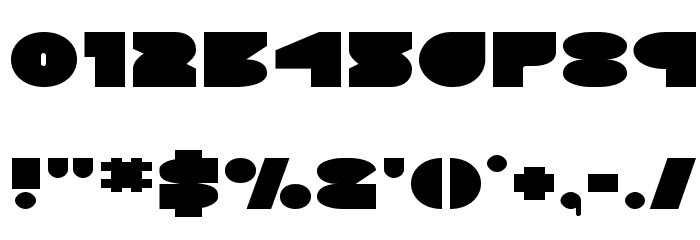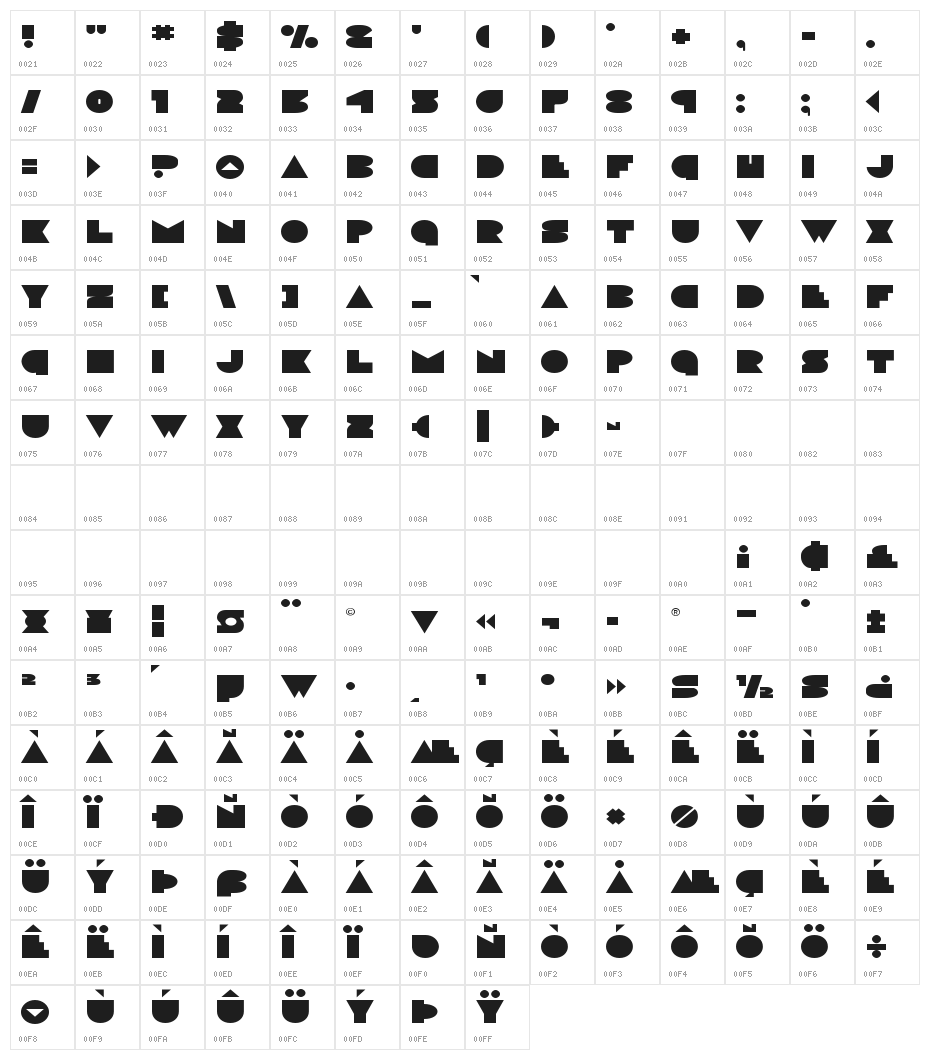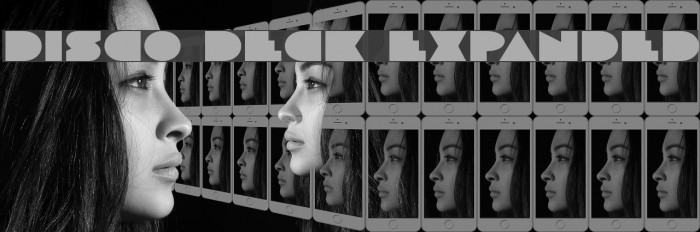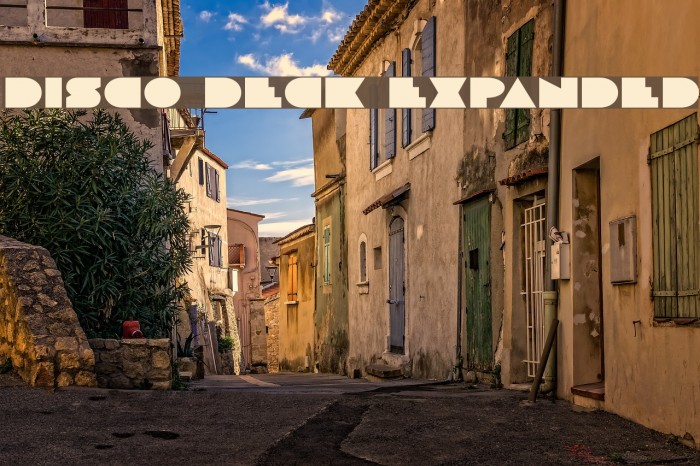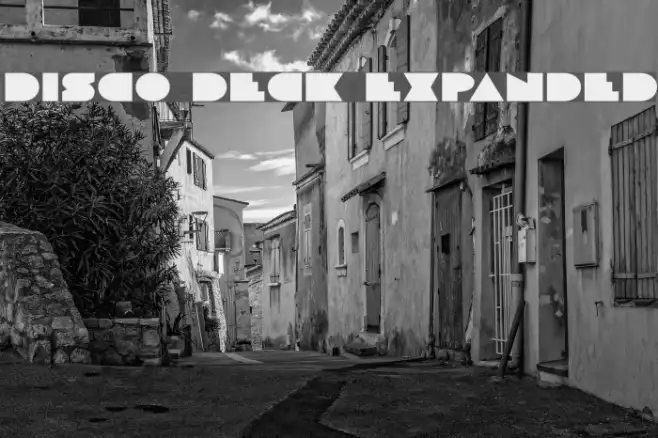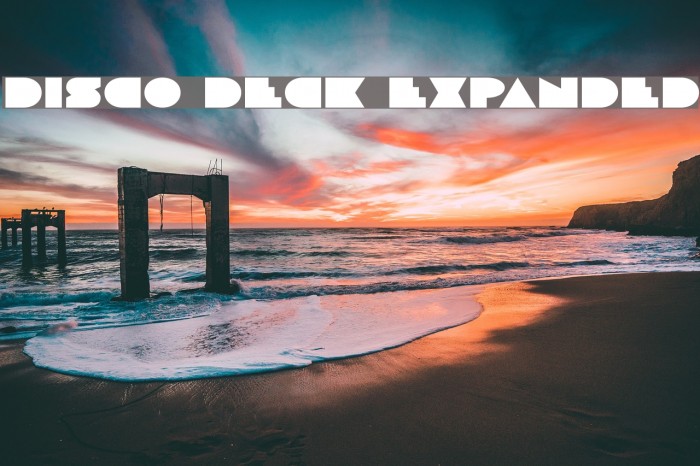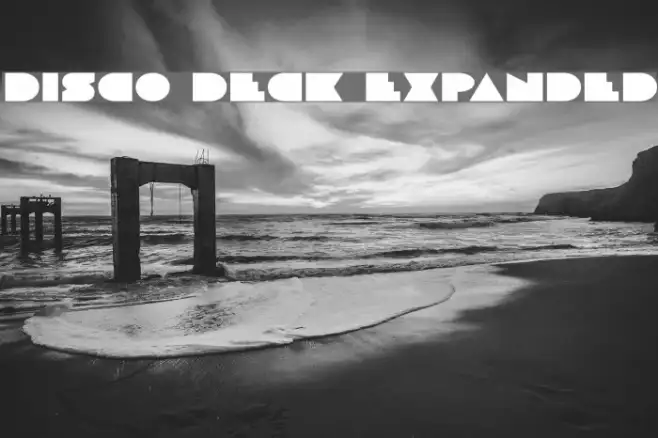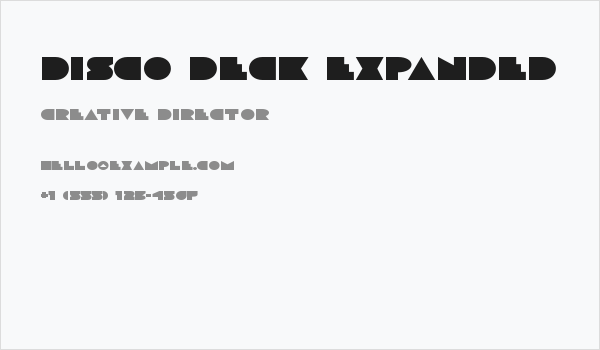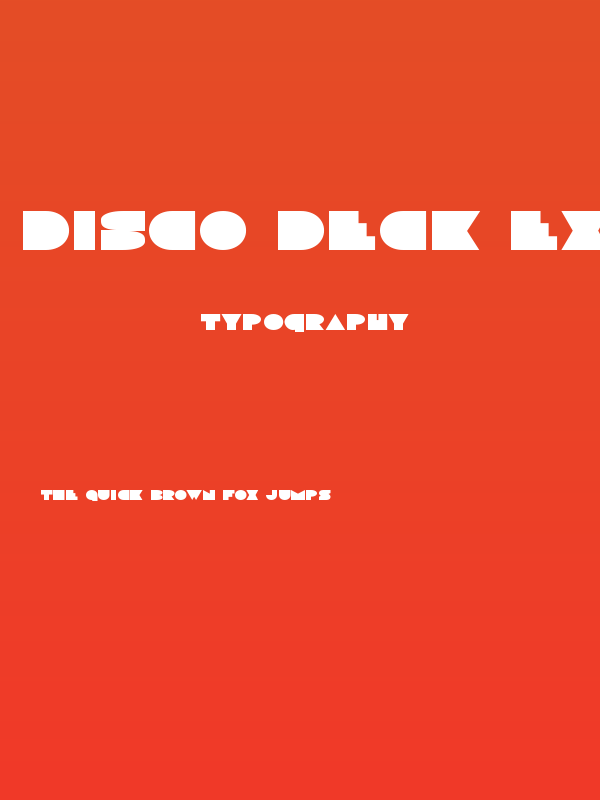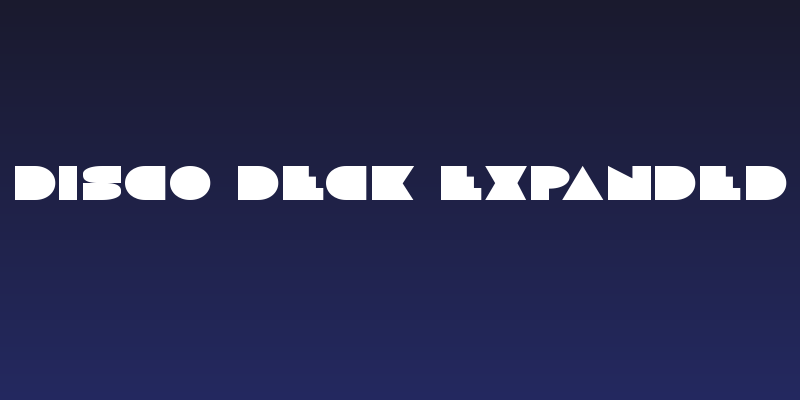
Disco Deck Expanded Font
Disco Deck Expanded Description
This font features a bold, geometric design with a distinctly modern and playful aesthetic. The characters are constructed with sharp angles and wide, block-like shapes, creating a sense of movement and energy. The uppercase and lowercase letters maintain a consistent style, with the lowercase mirroring the uppercase in form. Numbers and special characters are equally bold and stylized, fitting seamlessly into the overall design. The font's unique style is reminiscent of retro-futuristic themes, making it ideal for projects that require a standout, eye-catching typeface.
| Proposed Projects | Ideal for music album covers, event posters, branding for creative industries, and any project needing a retro-futuristic vibe. |